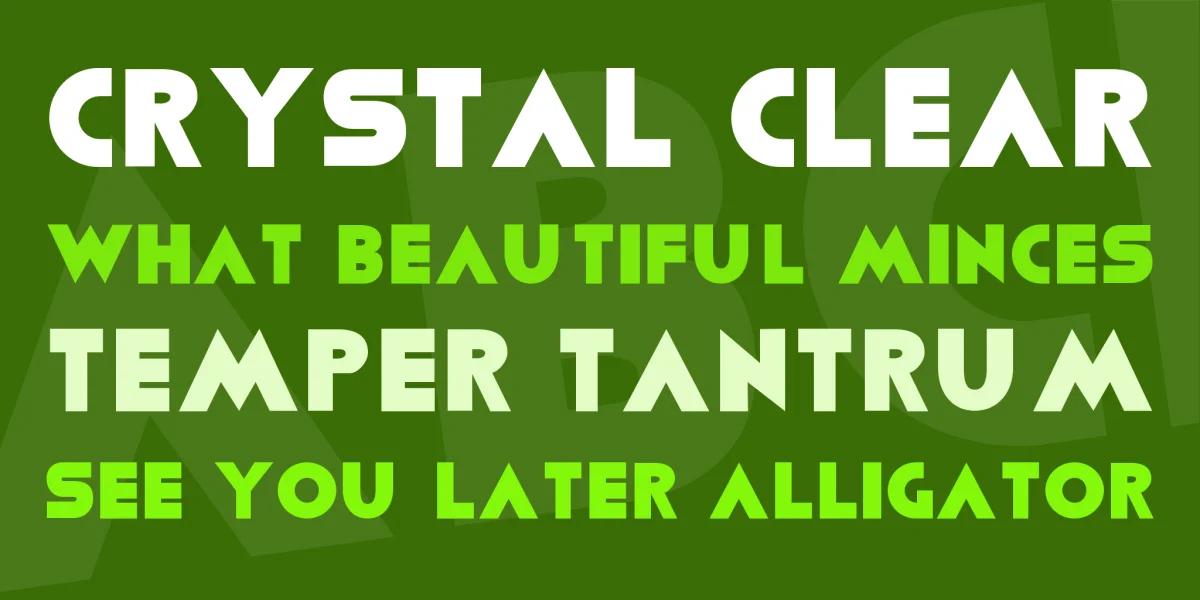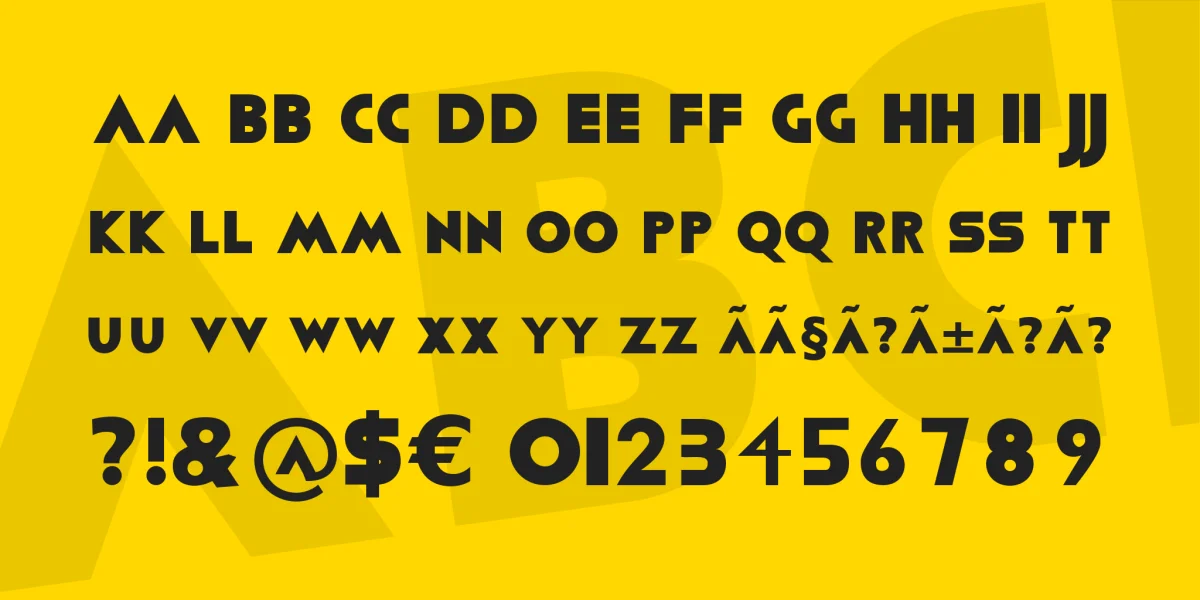
The Viafont font is a geometric, sans-serif font that resembles the Viacom logo. I designed this font in FontLab Studio. It includes alphanumeric characters, punctuation and international characters. Like all other fonts that I made, this font has a Euro sign and is Public Domain.